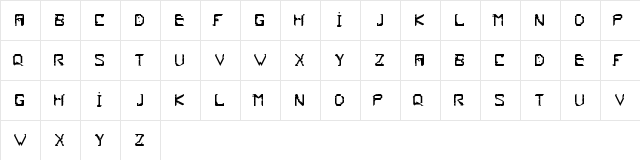
Frish Regular
| Foundry | Marine Drouan - Mixher |
| Designer | mixher (Marine Drouan) |
Design Context for Frish Typeface
Frish takes a measured approach to typography — its balanced proportions and neutral character make it a reliable workhorse for both digital and print work.